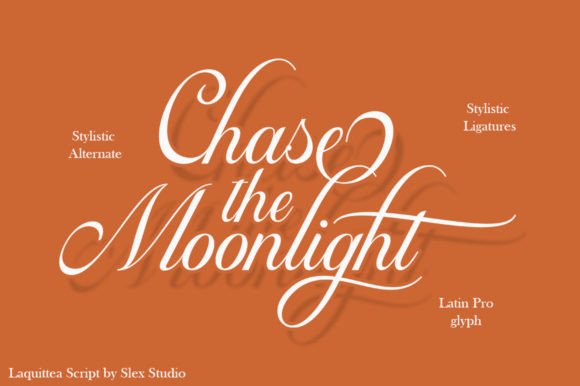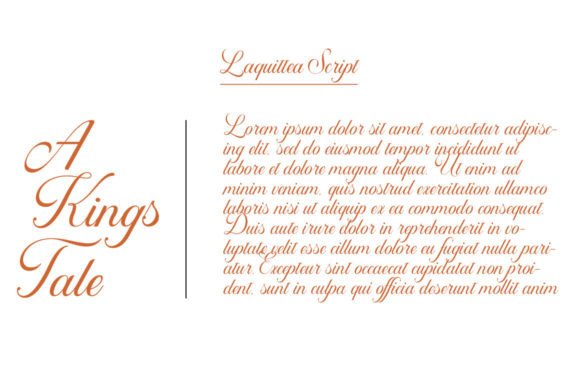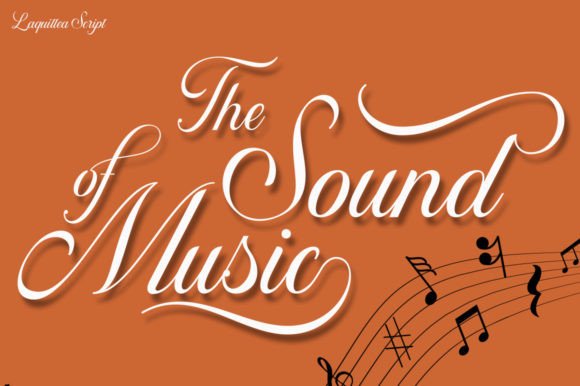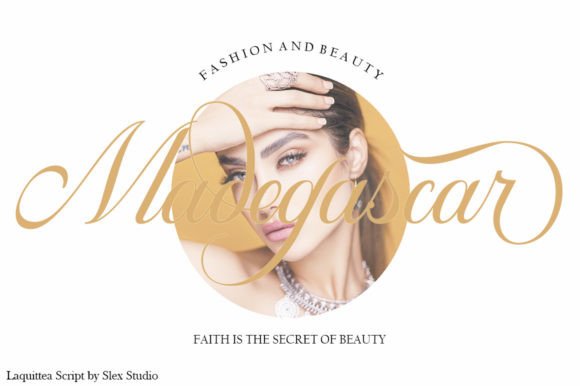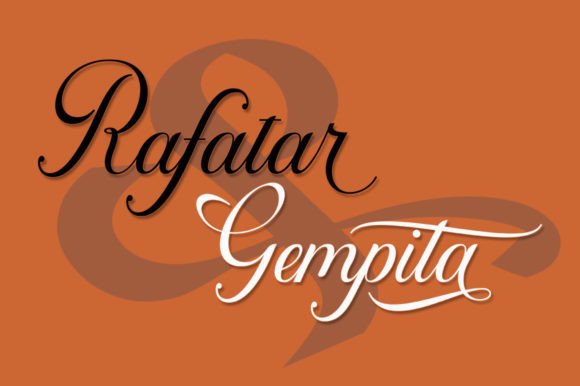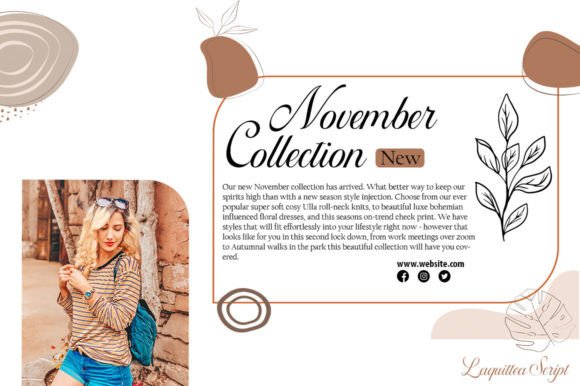
Introduction to Laquittea Font
Have you ever been working on a creative project, pouring your heart and soul into it, only to find the perfect font to bring it all together eludes you? The frustration is real, but what if I told you there’s a solution to this problem? Enter the Laquittea Font, a stunning script font that’s sure to elevate your design game.
With its elegant and contemporary atmosphere, the Laquittea Font is the perfect addition to any high-quality design resource. Its impeccable form and balanced design make it an ideal choice for designers looking to add a touch of sophistication to their projects. Whether you’re working on a creative project with a transparent background or a more traditional design, this font is sure to impress.
Key Features of Laquittea Font
- Features a unique, elegant script style perfect for adding a touch of sophistication to your design
- Available in a single weight, ideal for use in headings and titles
Honest Review: Laquittea Font
I recently stumbled upon the Laquittea Font, and I must say it’s a hidden gem for designers. The font’s high quality and clean design make it an excellent addition to any design resource collection.
One of the standout features of Laquittea Font is its transparent background, which allows for seamless integration with any creative project. The font’s elegant and sophisticated design makes it perfect for projects that require a touch of sophistication.
- ⚠️ Limited character set, which may not be suitable for long-form content
- ⚠️ Not ideal for projects that require bold or dramatic font styles
Overall, I’m impressed with the Laquittea Font. It’s a great option for designers looking for a high-quality, free design resource that’s perfect for creative projects. While it may have some limitations, it’s definitely worth considering for your next design project.
Laquittea Font Overview
The Laquittea Font is a high-quality design resource ideal for creative projects requiring a unique touch. Its transparent background makes it easy to use in various design applications.
Tips for Getting the Most Out of Laquittea Font
1. Experiment with different font sizes and styles to achieve the desired effect.
2. Combine the Laquittea Font with other design elements to create a unique look.
3. Use the font in conjunction with a transparent background to create a visually appealing design.
Common Use Cases for Laquittea Font
1. Branding and logo design
2. Social media graphics
3. Infographics and data visualizations
4. Advertising and marketing materials